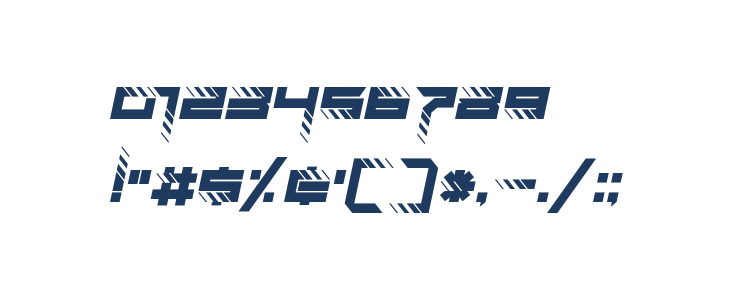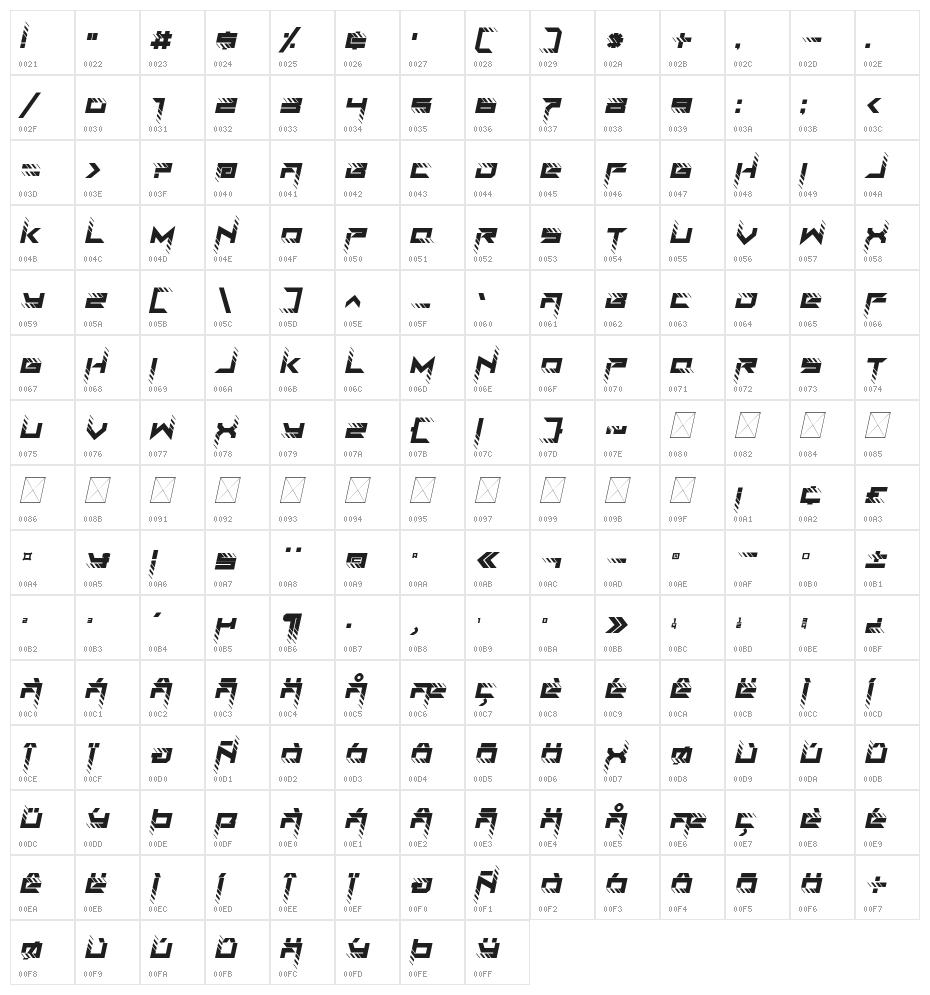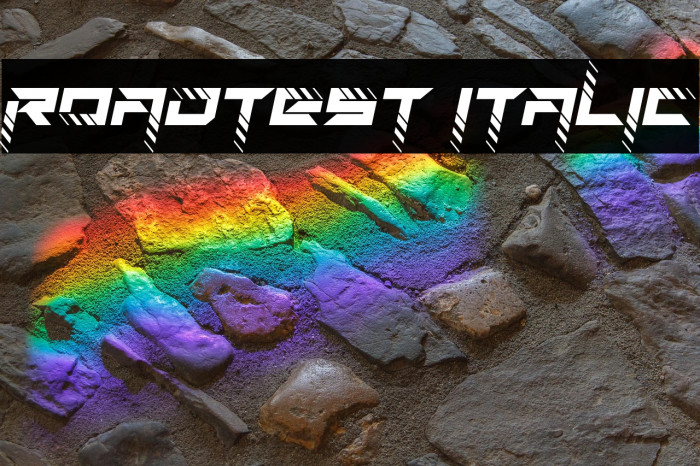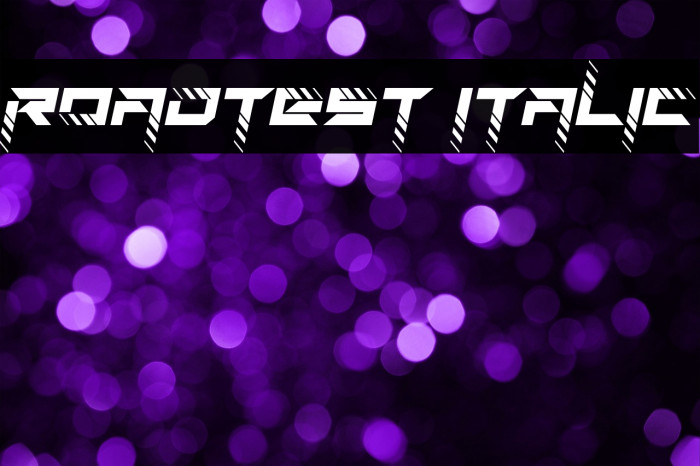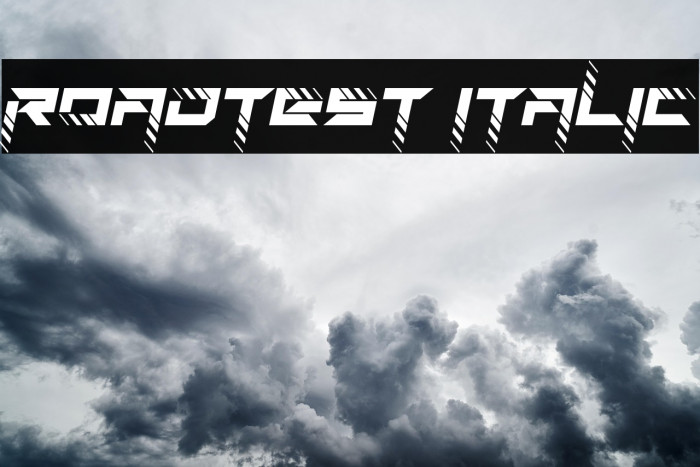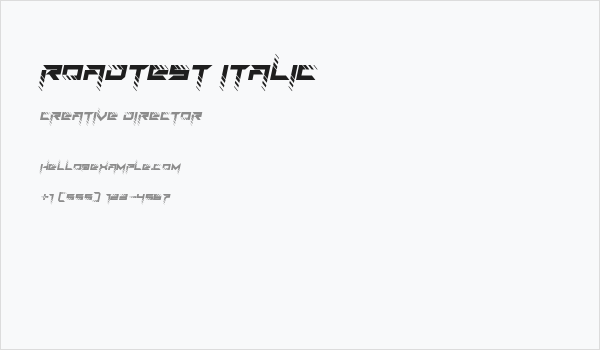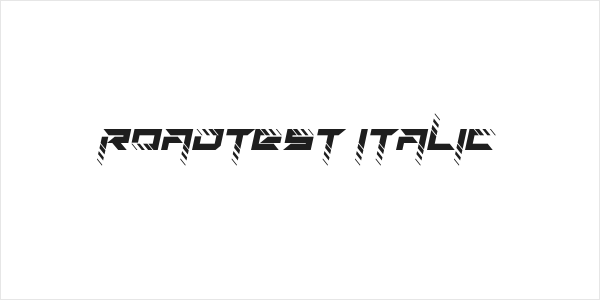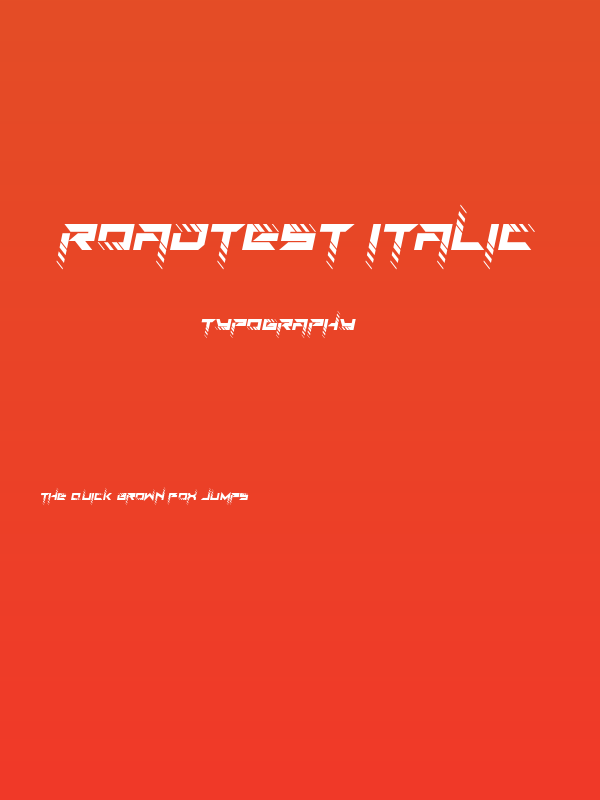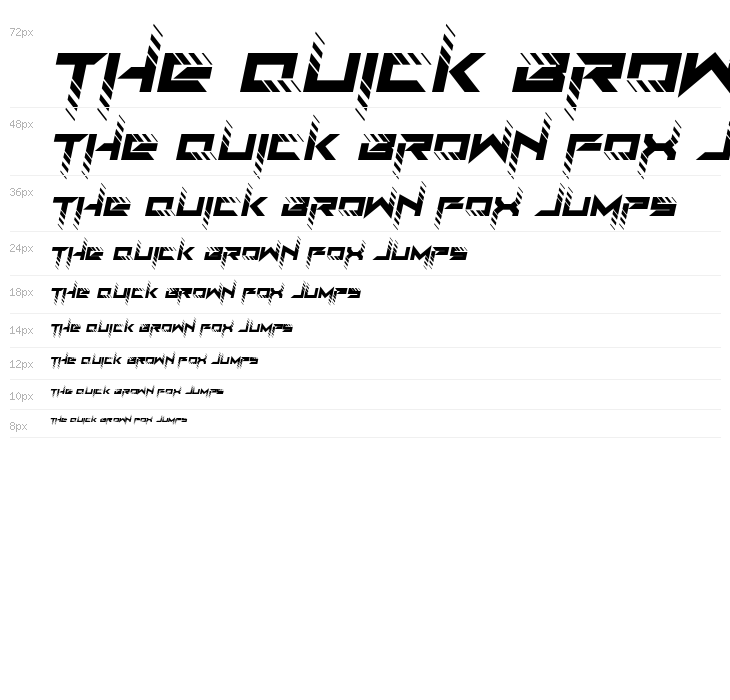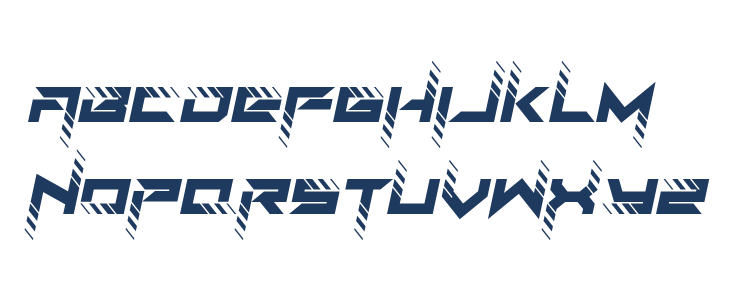
RoadTest Italic Font
RoadTest Italic Description
This font features a bold, futuristic design with a distinct italic slant, giving it a dynamic and energetic appearance. The characters are constructed with sharp, angular lines and a unique pattern of diagonal stripes, adding a sense of motion and speed. The uppercase and lowercase letters maintain a consistent style, with the lowercase being slightly smaller but equally bold. The numerals and special characters follow the same design principles, ensuring uniformity across all glyphs. This font's striking visual style makes it ideal for projects that require a modern and edgy aesthetic.